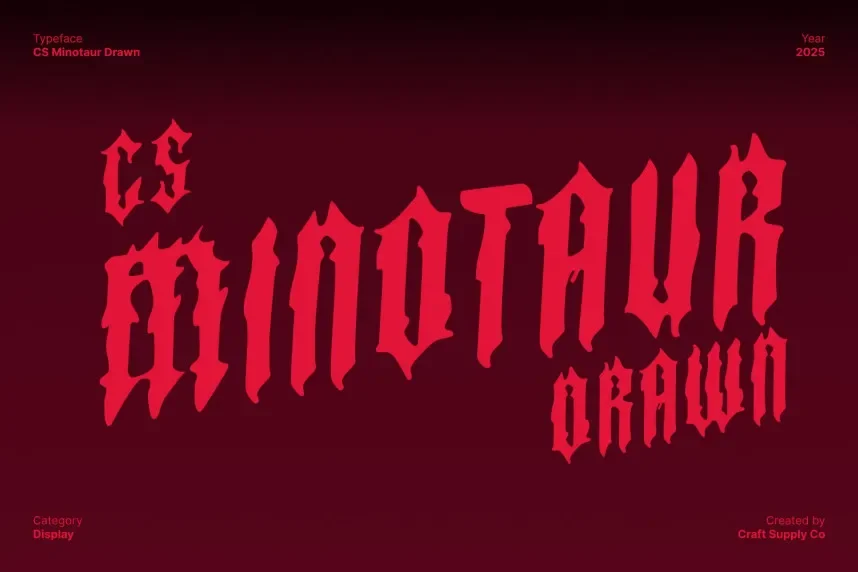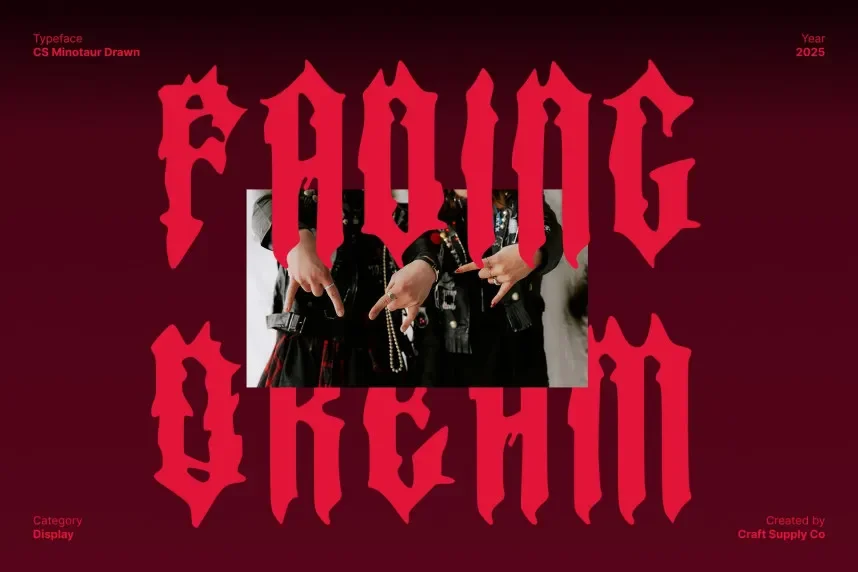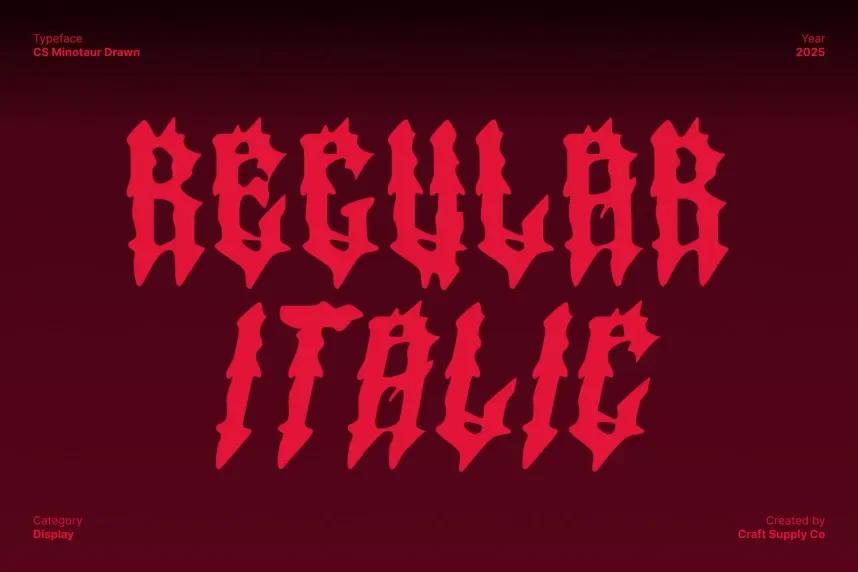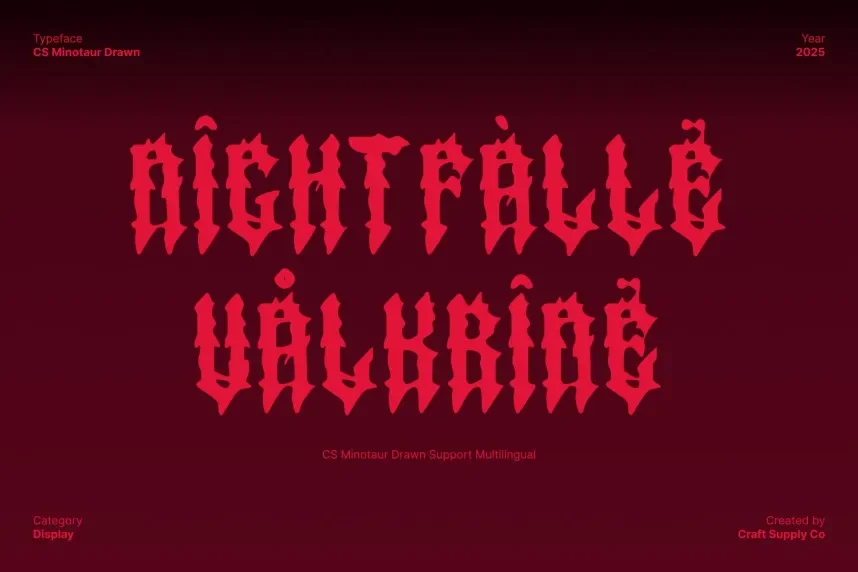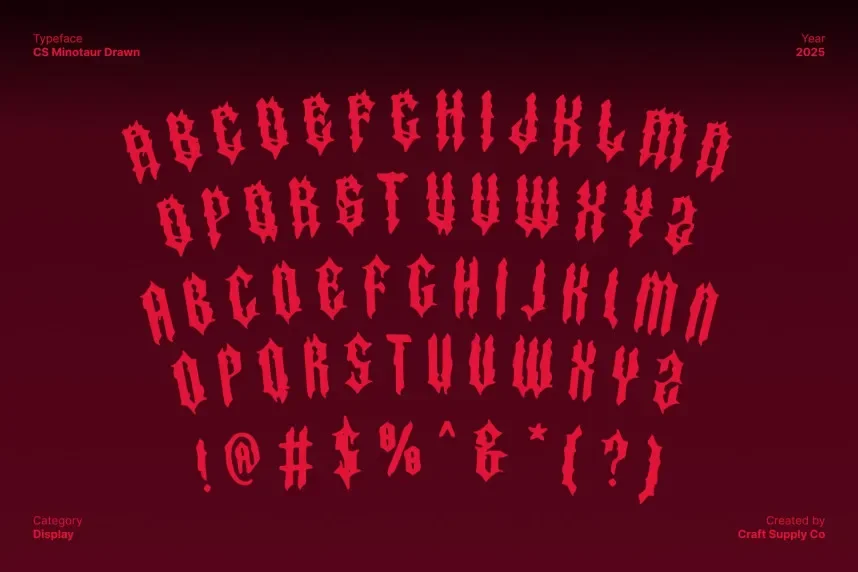
CS Minotaur Drawn Font addresses the challenge of creating a bold, artistic design while maintaining legibility. It is a great option for designers seeking to combine creative, hand-drawn style with clarity in larger text formats.
CS Minotaur is a display font with exaggerated strokes, uneven edges, and a rugged hand-drawn texture. The letterforms evoke a sense of strength and character, ideal for eye-catching headlines and logos. Its irregularity gives it personality while ensuring it stands out in creative designs.